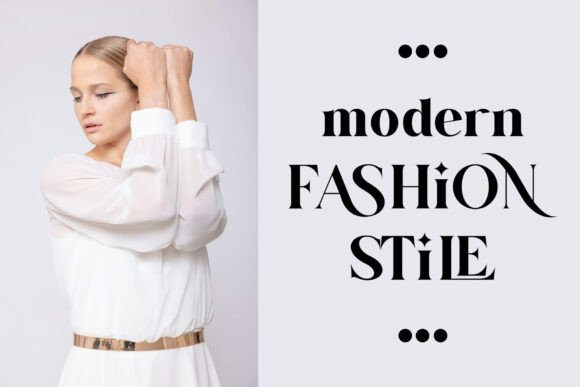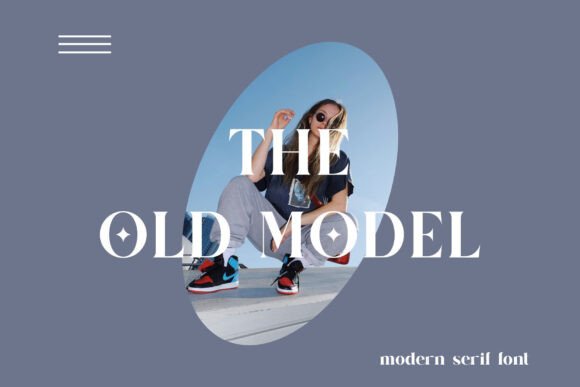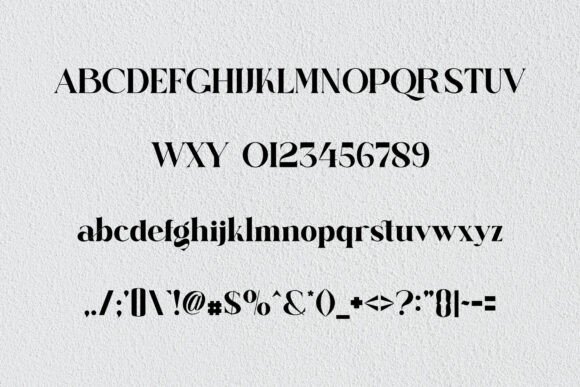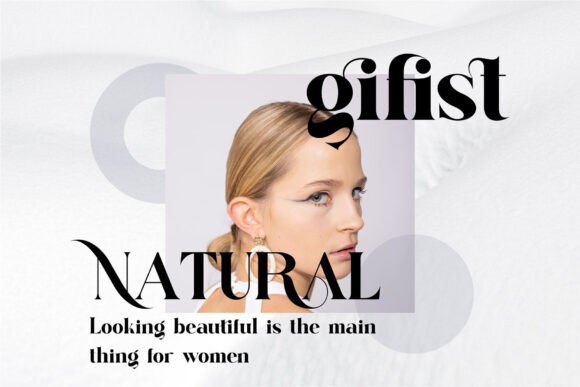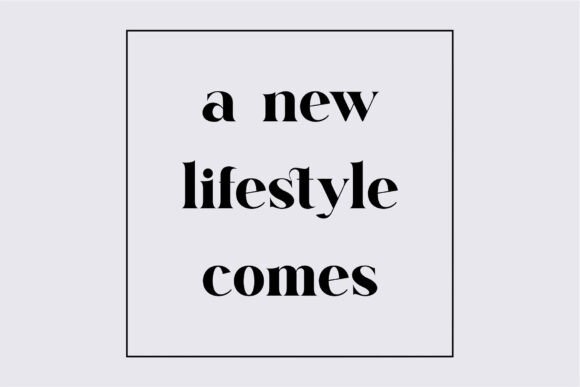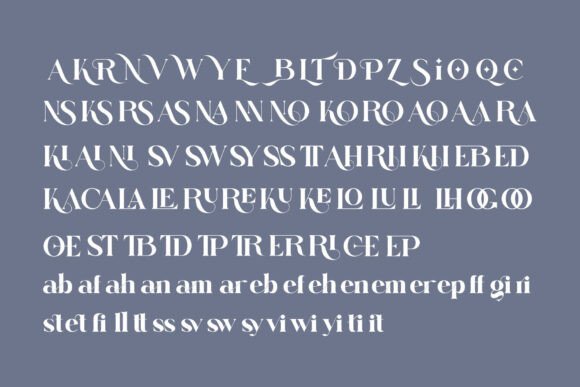
Aqinsi Font: Elevate Your Designs with Elegance and Sophistication
In the world of typography, finding the perfect font that embodies elegance, class, and modernity can be a daunting task. However, if you’re looking for a serif typeface that exudes sophistication and nostalgia, look no further than Aqinsi Font. This stunning font is designed to cater to the needs of designers and crafters who seek to add a touch of refinement to their work.
The Essence of Aqinsi Font
Aqinsi is an elegant and classy serif typeface that seamlessly blends modernity with nostalgia. Its unique design makes it an ideal choice for a wide range of applications, including logos, magazines, and social media. The font’s versatility is one of its standout features, allowing designers to experiment with various styles and formats.
Key Features of Aqinsi Font
- Modern and Nostalgic Design: Aqinsi Font boasts a distinctive design that is both modern and nostalgic, making it perfect for designers who want to create unique and captivating visual content.
- OpenType Features: Built with OpenType features, Aqinsi Font includes ligatures, numbers, and punctuation, ensuring that your designs are not only visually appealing but also highly functional.
- Language Support: This font supports multiple languages, making it an excellent choice for designers who work on international projects or with diverse client bases.
- Ready-to-Use Pairings: Aqinsi Font comes with pre-matched font pairings, saving designers time and effort in selecting harmonious font combinations for their projects.
Who Can Benefit from Aqinsi Font?
Aqinsi Font is specifically designed for individuals who require a touch of elegance, stylishness, classiness, chicness, and modernity in their designs. This includes:
- Graphic Designers: Looking for a sophisticated serif typeface to elevate their branding, advertising, and marketing materials.
- Magazine and Newspaper Publishers: Seeking a high-quality font that can enhance the readability and aesthetic appeal of their publications.
- Social Media Influencers and Content Creators: Aiming to create visually stunning content that stands out in a crowded digital landscape.
- Crafters and Artists: Desiring a unique and elegant font to use in their handmade projects, such as stationery, cards, and illustrations.
Tips for Using Aqinsi Font Effectively
- Experiment with Font Sizes: Aqinsi Font’s elegant design looks great in various sizes. Experiment with different font sizes to create visual hierarchy and emphasize key elements in your design.
Aqinsi Font is a versatile and elegant serif typeface that can elevate your designs to new heights. Its modern and nostalgic design, combined with its extensive feature set, makes it an ideal choice for designers and crafters seeking to add a touch of sophistication to their work. Whether you’re creating logos, magazines, social media content, or handmade crafts, Aqinsi Font is sure to impress.